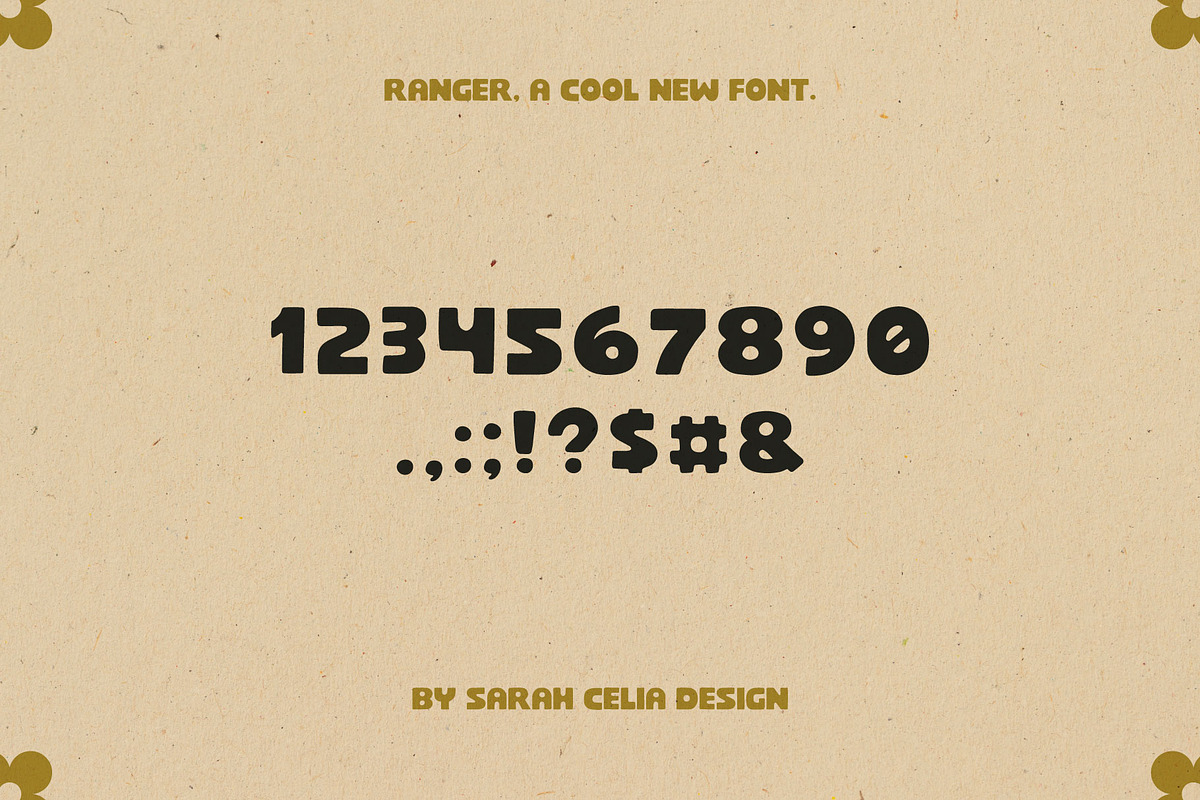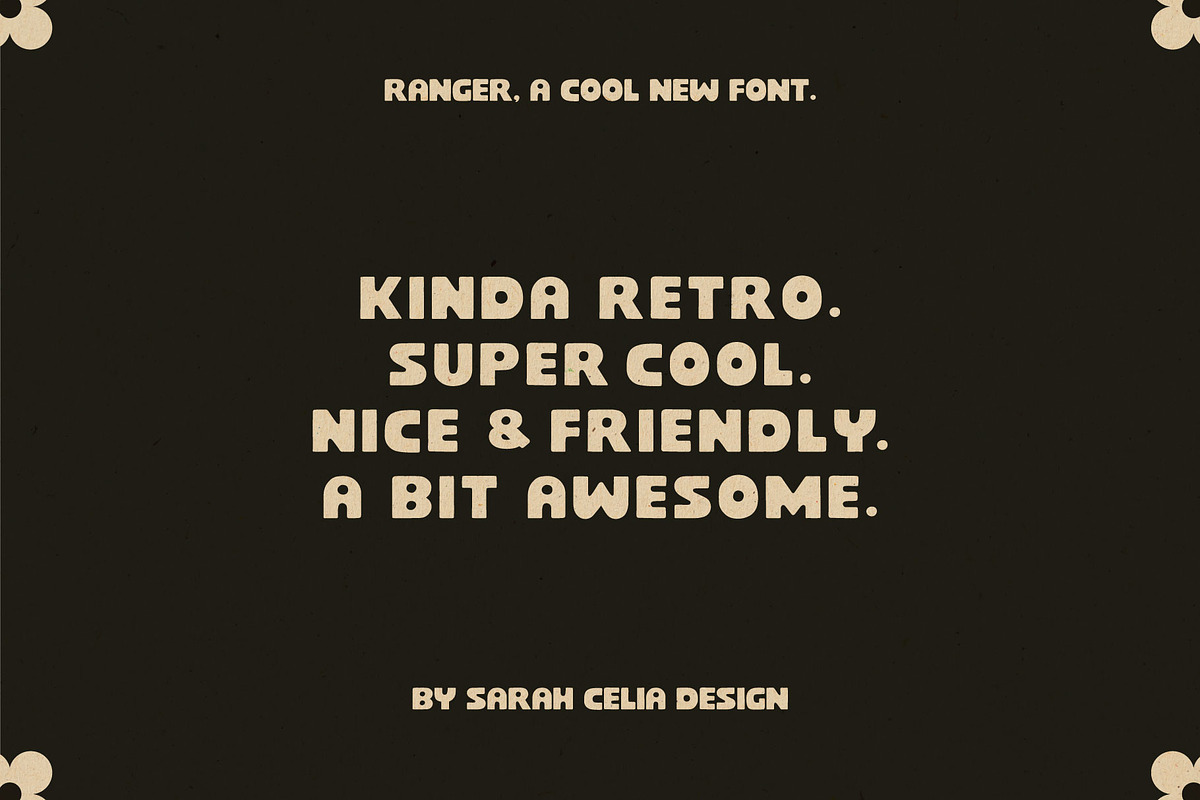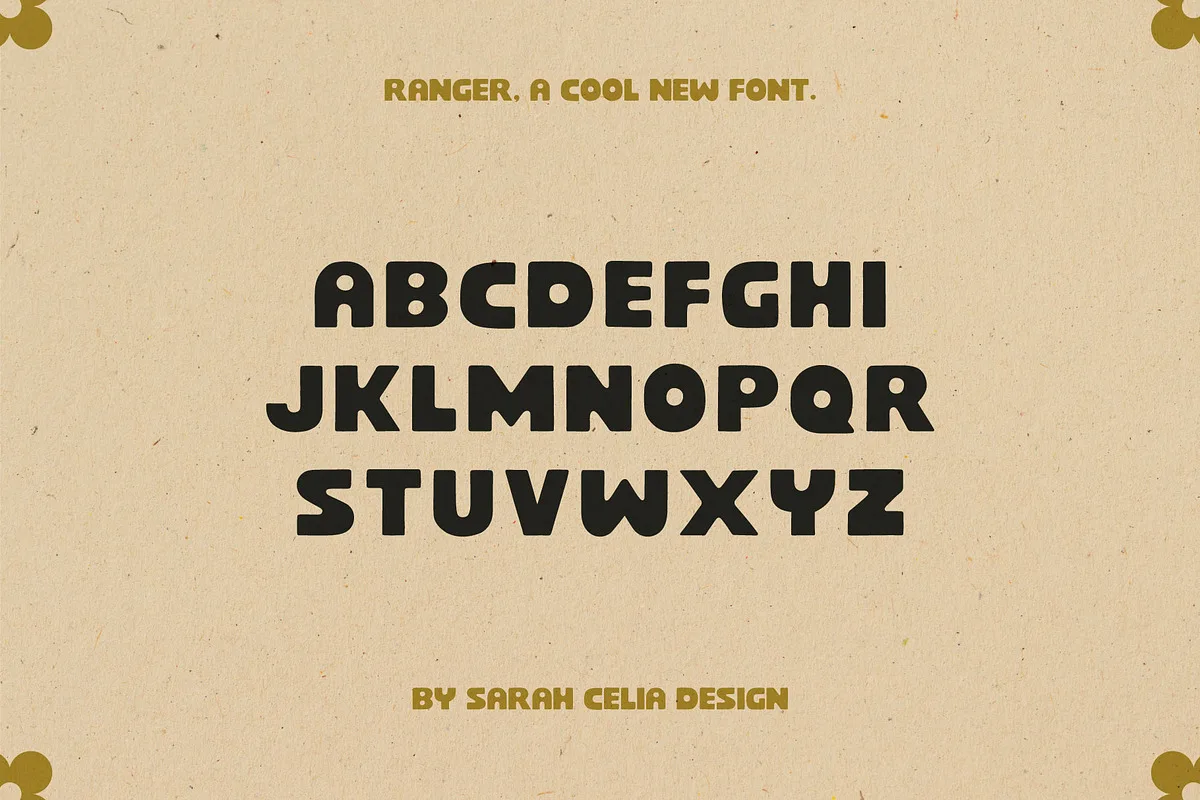
Ranger is a retro display font that blends retro vibes with modern geometric shapes, making it perfect for posters, branding, packaging, logos, headlines, and social media graphics. With clean lines, bold energy, and playful ligatures, Pronell gives your design a distinctive and stylish look.